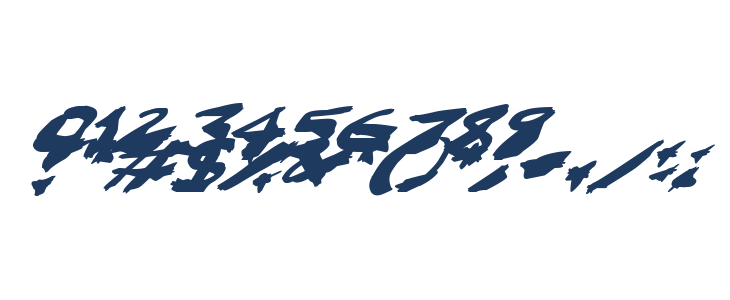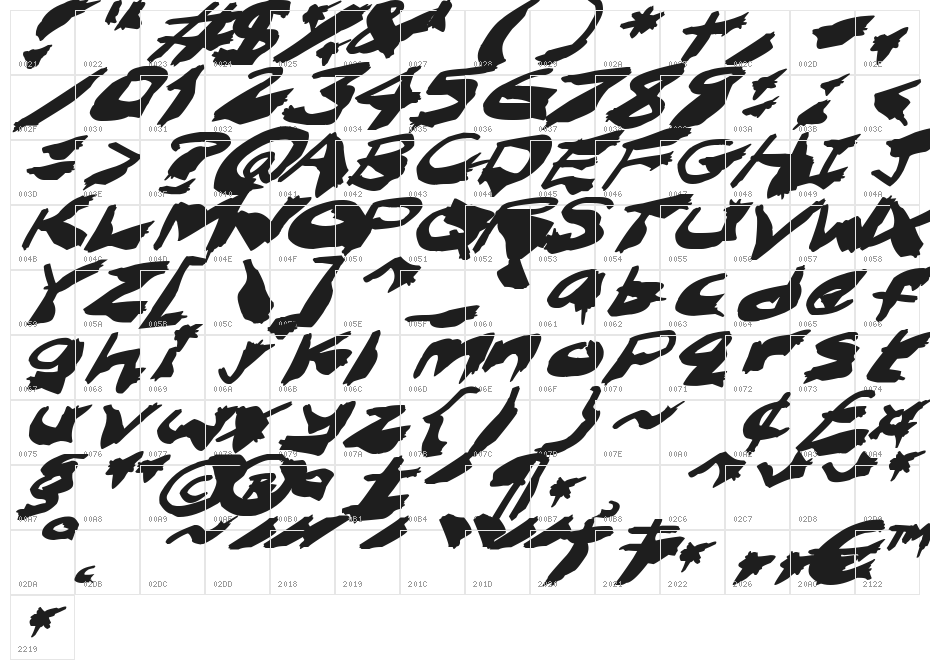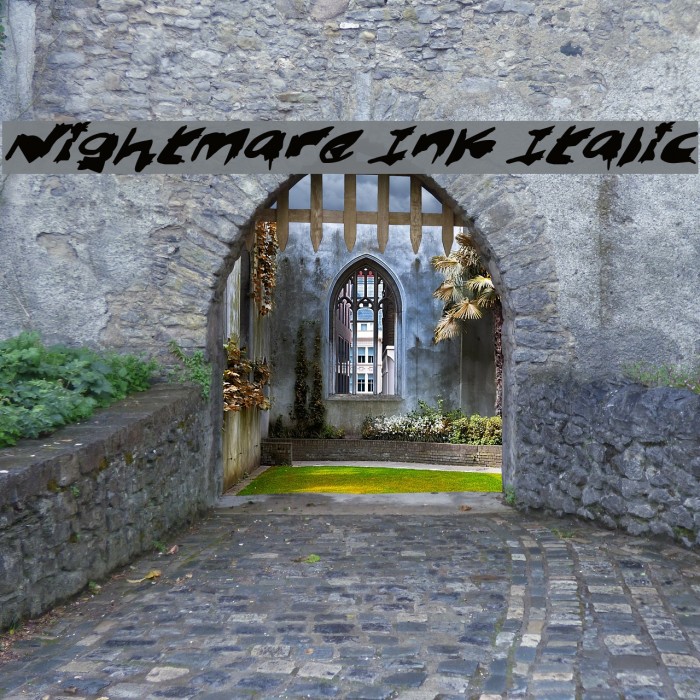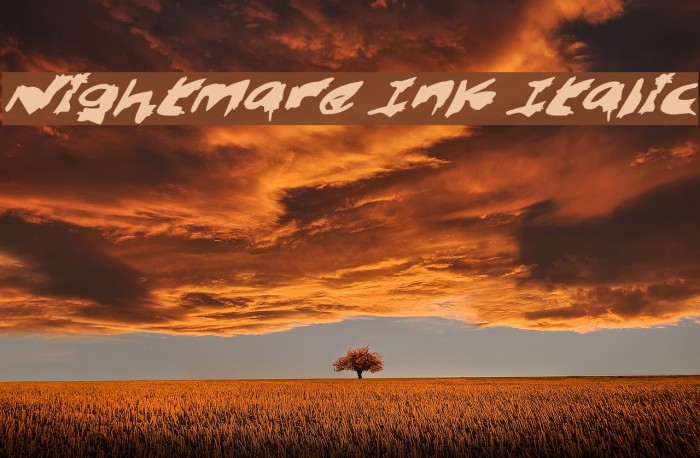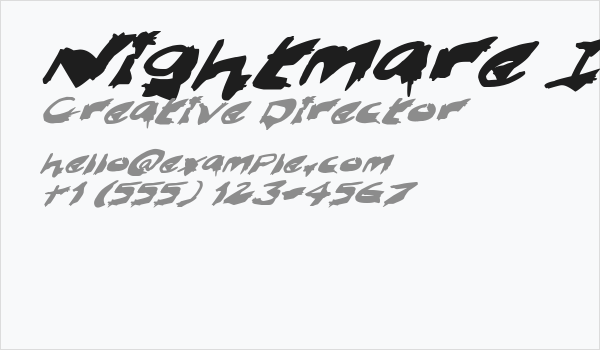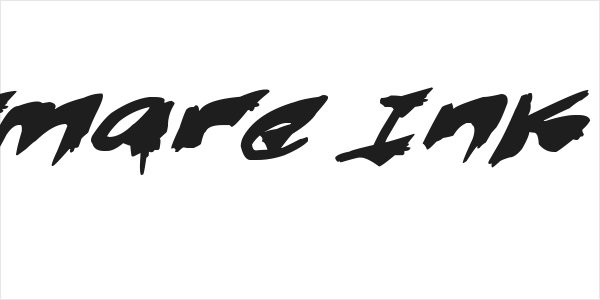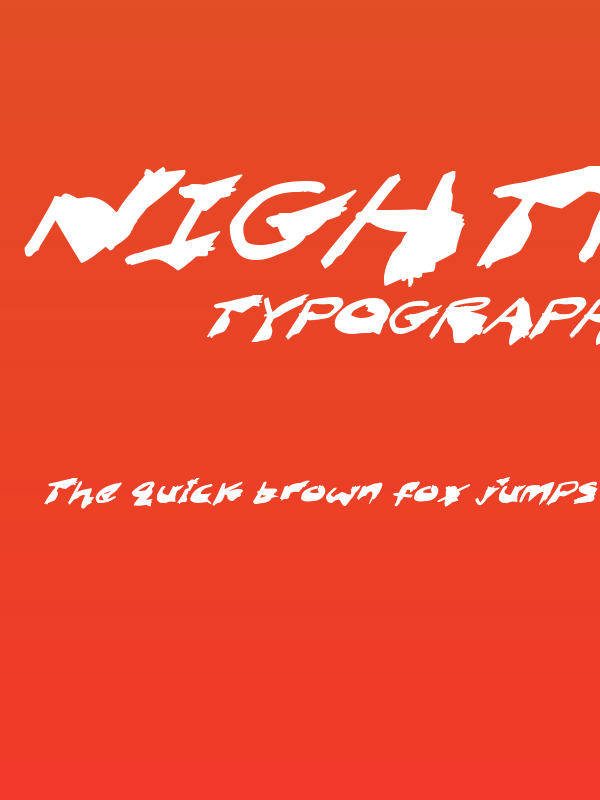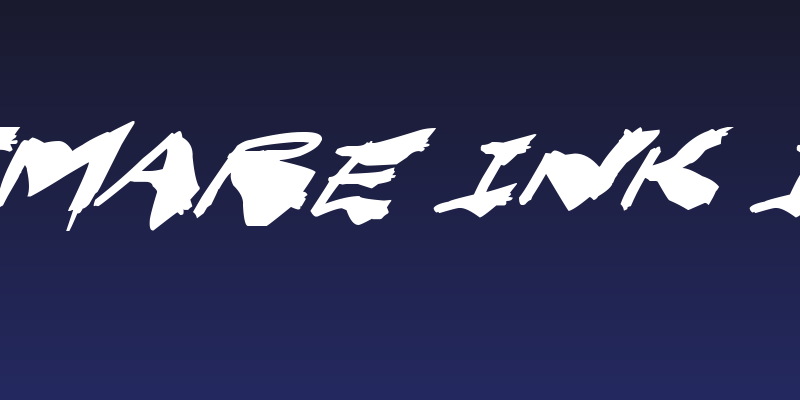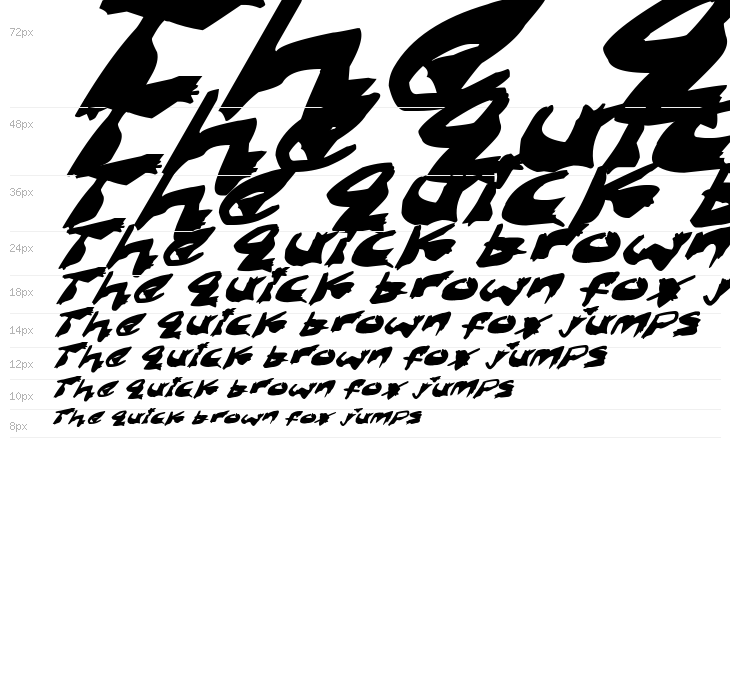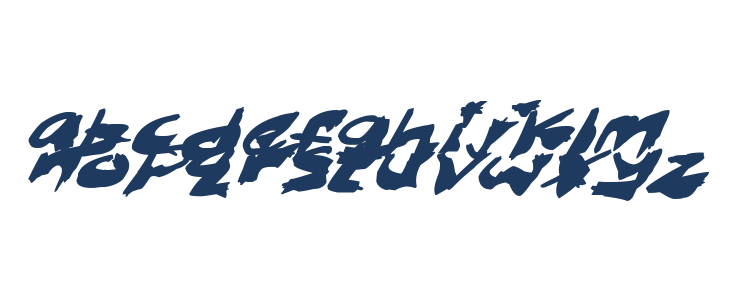
Nightmare Ink Italic Font
Nightmare Ink Italic Description
This font exudes a bold and edgy aesthetic, characterized by its sharp, jagged edges and dynamic slant. The letters appear as if they have been hastily painted with a brush, giving them a raw, energetic feel. The uppercase and lowercase letters maintain a consistent style, with exaggerated strokes that create a sense of movement and intensity. Numbers and special characters follow the same design principles, ensuring a cohesive look across all glyphs. The font's aggressive and rebellious nature makes it stand out, perfect for projects that require a strong visual impact.
| Proposed Projects | Ideal for horror-themed designs, edgy posters, album covers, and video game graphics. |